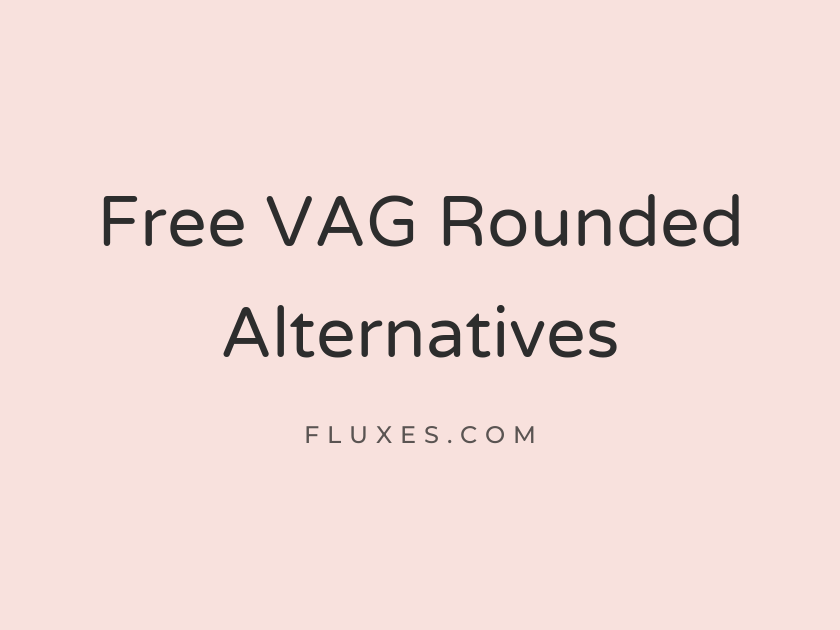
13 Best Free Fonts Alternatives to VAG Rounded
VAG Rounded has been a staple of friendly, approachable branding since the 1970s, prized for its geometric structure softened by plump, rounded terminals. It shows up everywhere from automotive logos to children’s packaging, but it has never been released as a free font, which sends a lot of designers searching for a rounded sans-serif alternative that captures the same warmth without licensing costs. Google Fonts has a surprisingly deep bench of rounded typefaces that can stand in for VAG Rounded in branding, UI, packaging, and display work, each with its own personality and technical range.
Friendly curves for approachable, modern branding
Of everything on this list, Varela Round sits closest to the original in spirit: a single confident weight, evenly balanced strokes, and terminals that curl just enough to feel soft without turning cartoonish. It only comes in one weight, so it works best as a headline or logotype font rather than a full text system, paired with a plainer sans for body copy.
Rounded shapes that feel warm and welcoming
Fredoka has become something of a default choice whenever a project calls for cheerful, rounded lettering, and it earns that popularity with a wide weight range that runs from a light, airy build to a chunky bold. The lowercase letterforms are notably wide and open, which keeps big headlines legible even when the corners get exaggerated at heavier weights. It is a strong pick for app interfaces, kids’ brands, and food packaging where VAG Rounded’s bouncy friendliness is the goal.
Bold rounded letters that welcome every reader
Baloo 2 leans sturdier and more grounded than most rounded sans options, with thick strokes and generous counters that hold up well at small sizes on screen. It was built as part of a large multi-script family, so if a project ever needs to extend beyond Latin type, the infrastructure is already there. Its heft makes it a natural fit for buttons, badges, and signage-style headlines.
Light, geometric curves for a modern feel
Quicksand trades VAG Rounded’s density for something airier and more minimal, built on true geometric circles and rounded stroke ends that feel closer to a display face than a workhorse text font. It reads best at larger sizes; small body text can lose crispness because the strokes are relatively thin and uniform. Pair it with a neutral grotesque for paragraphs and let Quicksand carry headings and short labels.
Smooth, rounded letterforms for logo design
Comfortaa was drawn with logo design in mind, and it shows in the evenness of its curves and the way every letter feels like it was traced from the same compass. That consistency makes it excellent for wordmarks and short brand names, though the rounded lowercase can blur together in long passages of text. Treat it as a display and identity font rather than a body copy solution.
Soft rounded type that reads beautifully everywhere
Nunito is the most versatile entry here, a rounded sans built with genuine text legibility in mind rather than just headline impact. The rounded terminals are subtle rather than bubbly, which lets it slide into UI copy, articles, and long-form body text without ever feeling like a novelty font. This is the one to reach for when a brand wants the friendliness of rounded type but still needs a dependable workhorse for paragraphs.
M PLUS Rounded 1c
Clean rounded design for global interfaces
M PLUS Rounded 1c
Originally developed for Japanese typesetting, M PLUS Rounded 1c brings an enormous range of weights and a crisp, engineered feel that suits UI and product design especially well. The rounding is restrained and precise rather than playful, closer to how VAG Rounded reads in serious corporate contexts than to the bouncier options nearby on this list. It is worth a look for any interface that needs both Latin and Japanese type in the same rounded family.
Bubbly rounded letters for playful branding
Sniglet pushes further into cartoon territory than VAG Rounded ever did, with squashed proportions and heavily inflated curves that read as distinctly casual and fun. It suits children’s brands, party invitations, and playful packaging, but it is not the font to reach for if the goal is a more grown-up, corporate warmth.
Chunky rounded letters full of personality
Chewy is a single bold weight with thick, marker-like strokes and a hand-inked quality that gives it real charm on posters, snack packaging, and game logos. It is unapologetically loud, so it works best in short bursts rather than as a system-wide typeface.
Grandstander
Bouncy rounded type with variable weight options
Grandstander
Grandstander has a slightly wonky, hand-tuned energy to its curves, with a variable font structure that lets it scale smoothly from a light text weight up to something bold enough for a poster headline. The gentle irregularity in the letterforms gives it more warmth and character than a strictly geometric rounded face, useful for brands that want friendly without feeling manufactured.
Test any rounded typeface at your smallest intended size first; the softened corners that look charming in a headline can blur into mush in a caption.
Rounded sans fonts carry an instant sense of approachability, and the free options on Google Fonts now cover nearly every register that VAG Rounded once owned alone, from corporate calm to full cartoon bounce. Downloading and testing a few side by side, at the actual sizes a project will use, is the fastest way to find the one that fits.